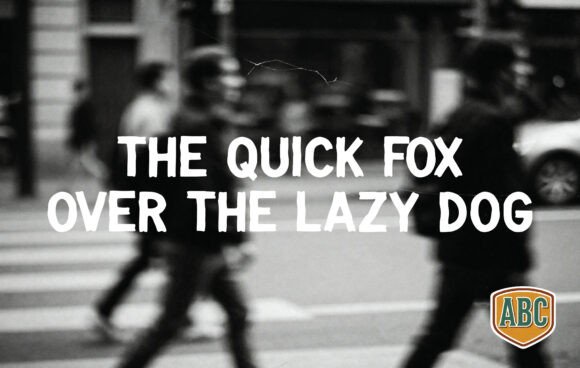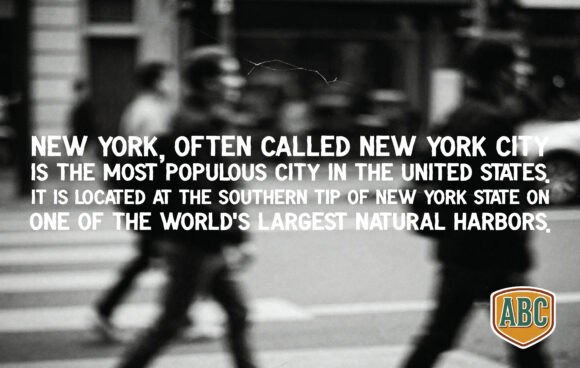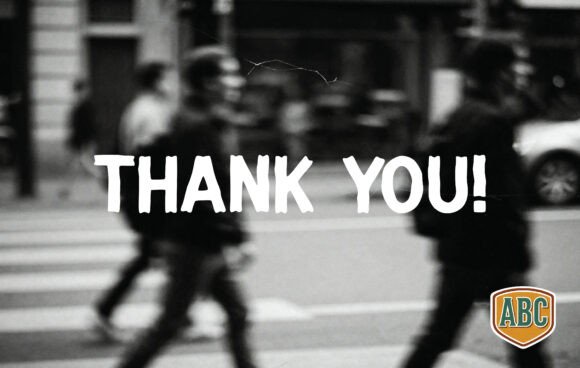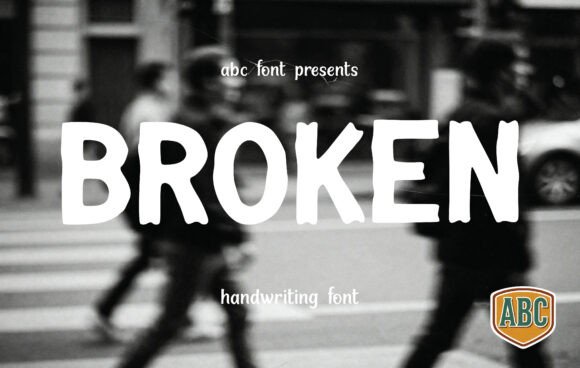
The Power of Imperfection: Unleashing the Energy of Broken Font
I still remember the design project that led me to discover the Broken Font. I was working on a branding campaign for a streetwear client, and I needed a typeface that captured the raw, edgy spirit of urban culture. After hours of searching, I stumbled upon Broken Font, and it was love at first sight. The distressed, hand-inked look was exactly what I needed to bring my design to life.
- ✨ The unique, jagged edges and “taped” textures that give it a DIY, underground aesthetic
- ✅ The font’s versatility in various design contexts, from skate brand identities to music festival posters
- 💥 The high-impact headlines it creates, perfect for grabbing attention
- 🔥 The authentic, rebellious vibe it brings to every project
While Broken Font is an amazing typeface, there are a few things to keep in mind:
- ⚠️ The font’s distressed texture can be overwhelming if not paired with the right imagery or design elements
- 🤔 It may not be the best choice for body text or small font sizes, as the texture can become too noisy
The Backstory of Broken Font
Broken Font was designed by a team of creatives who wanted to capture the raw energy and imperfection of urban life. Inspired by the DIY ethos of street culture, they created a font that would reflect the grit and character of the city streets. With its jagged edges and distressed texture, Broken Font is the perfect choice for designers who want to add a touch of rebellion to their work.
| What is the best way to pair Broken Font with images? | Broken Font works best when paired with clean, monochromatic photography. This allows the texture of the letters to take center stage and creates a striking visual contrast. |
| Can I use Broken Font for body text? | While Broken Font is amazing for headlines, it’s not the best choice for body text. The distressed texture can become too noisy and overwhelming for smaller font sizes. |
| Is Broken Font suitable for print design? | Absolutely! Broken Font is a versatile typeface that works well in both digital and print design. Just make sure to adjust the font size and style according to your design needs. |